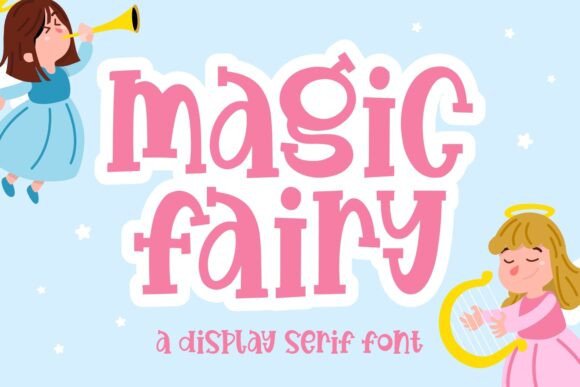
Adenman Posted May 18 Share Posted May 18 Step into a world of enchantment with Magic Fairy, the whimsical display serif font that brings a touch of fairy dust to your designs! With its unique, playful serif style and soft curves, this font is perfect for magical, storybook-inspired projects. Whether you’re creating invitations for a fairy-tale event, designing children’s books, or crafting whimsical posters, Magic Fairy will add that extra sprinkle of fantasy. Its bold yet playful design captures the essence of charm and imagination, while full multilingual support ensures your magical creations can reach every corner of the world! Compatibility: windows & apple/mac & linux Giveaway Link –> https://www.creativefabrica.com/product/magic-fairy-3/ kameli, vhick, phen0men4 and 1 other 2 2 Link to comment Share on other sites More sharing options...